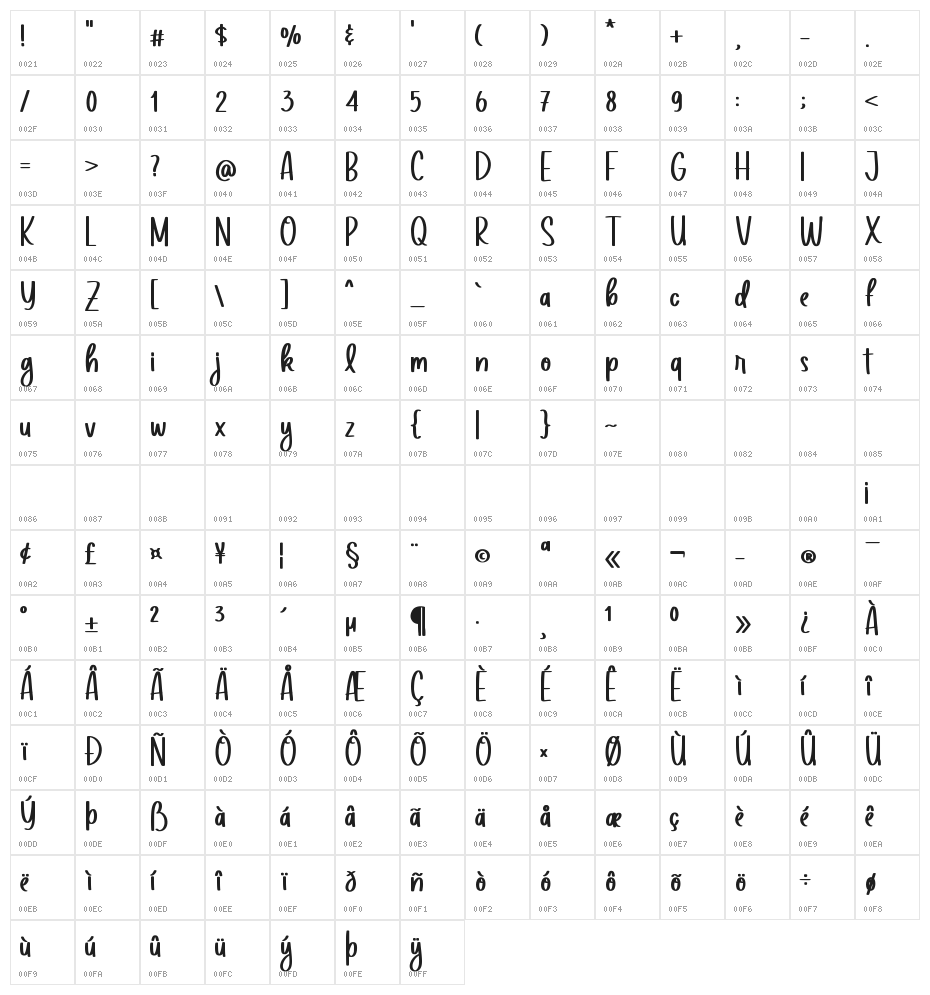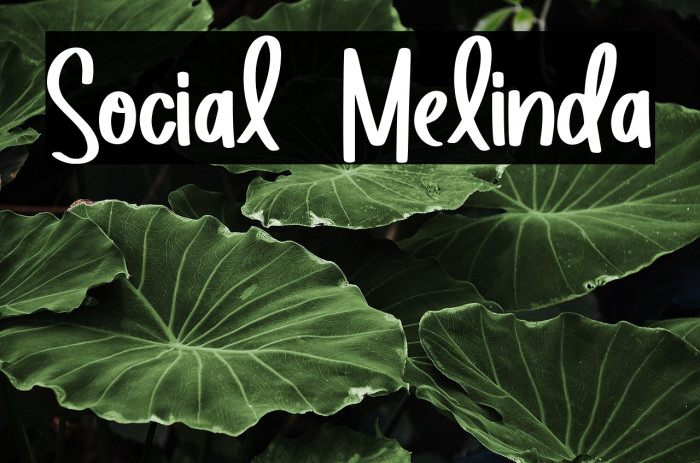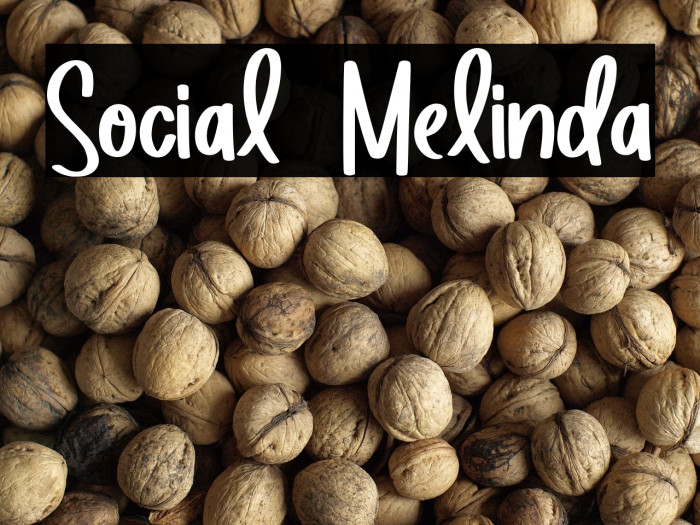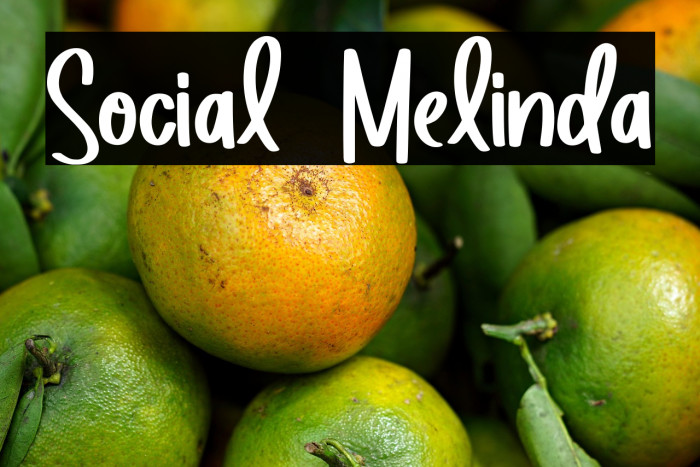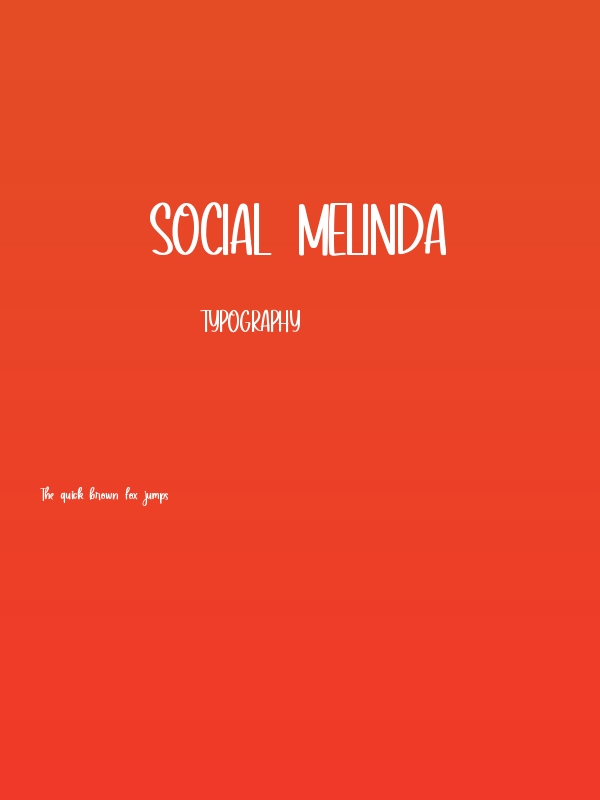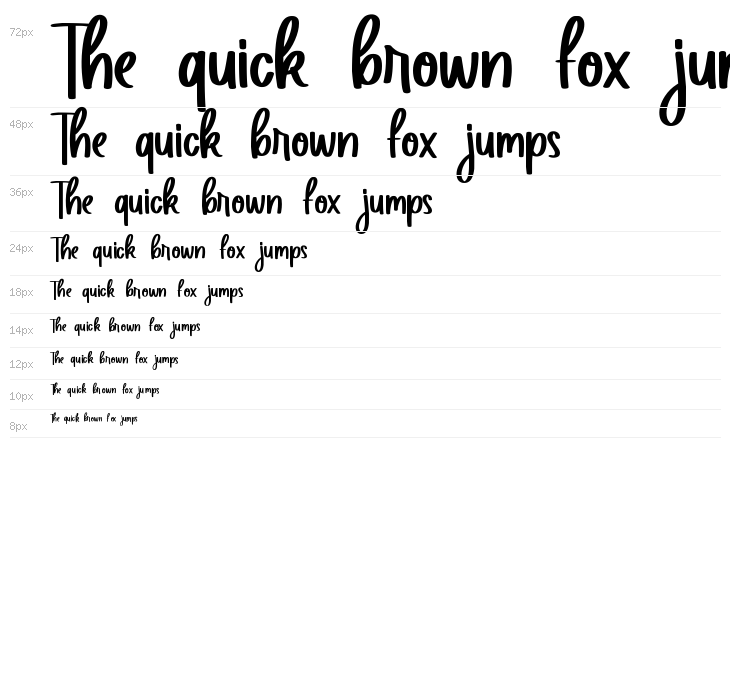
Social Melinda Font
Social Melinda Description
This font features a playful and energetic style, characterized by its bold and flowing letterforms. The uppercase letters are tall and slightly narrow, with a consistent stroke width that gives them a modern yet approachable feel. The lowercase letters are more whimsical, with some characters featuring loops and curves that add a touch of personality. The numerals are straightforward and align well with the overall style, maintaining the same boldness and clarity. Special characters are designed with the same playful spirit, making them suitable for a variety of creative applications. The font's overall appearance is both friendly and dynamic, making it ideal for projects that require a lively and engaging typeface.